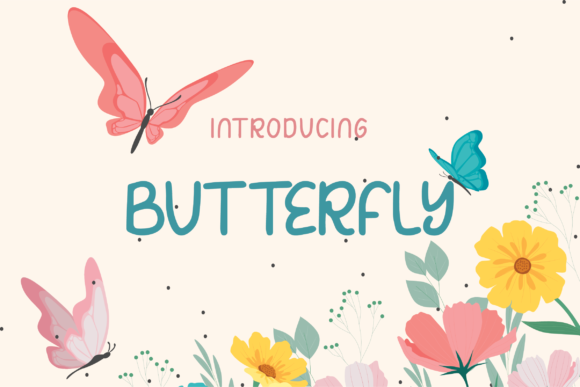
The Perfect Touch: Unlocking the Beauty of the Butterfly Font
Do you remember the moment when you stumbled upon the perfect font to elevate your creative project? For many designers, it’s a moment of pure excitement and joy. Whether it’s a handmade card for a loved one or a brand-new logo for a client, finding the right font can make all the difference.
That’s where the Butterfly Font comes in – a stunning, handwritten font that adds a touch of elegance and sophistication to any design. Its beauty lies in its versatility, making it perfect for a wide range of crafting ideas, from cards and branding to labels and more. With the Butterfly Font, you’ll be able to add a personal and unique touch to your creations, setting them apart from the rest.
As a designer, you know how valuable a great font can be. It can make or break the overall aesthetic of a project, and the Butterfly Font is certainly a game-changer. Its unique characteristics and beauty make it an essential addition to any designer’s toolkit, waiting to be unleashed on your next creative project.
Key Features of Butterfly Font
- Font Family: Butterfly is a sans-serif font family designed for digital use, available in multiple weights.
- Character Set: The font family includes a comprehensive set of characters, including Latin, Cyrillic, and Greek alphabets, as well as a range of punctuation and symbol glyphs.
- Size: The font family is designed for use at medium to large sizes, making it ideal for headings, titles, and other display typography.
- Resolution: The font is optimized for use at high resolutions (up to 300 DPI), ensuring clear and crisp rendering on high-resolution displays.
- Unique Characteristics: Butterfly Font features a distinctive, rounded sans-serif design with a friendly and approachable feel, making it suitable for a wide range of applications, from corporate identity to editorial and advertising design.
Designer Review: Butterfly Font
I’ve had the chance to play around with the Butterfly Font, and here’s my honest take:
- The Butterfly Font has a beautiful, whimsical feel to it. It’s perfect for creating a sense of playfulness and wonder.
- The font is highly customizable, with a range of weights and styles to choose from. This makes it easy to adapt to different design contexts.
- The font’s unique character set, including swashes and flourishes, adds a touch of elegance and sophistication.
- The font may be too ornate for some designs, particularly those that require a clean and minimalist aesthetic.
- The font’s unique character set can be overwhelming in large blocks of text, making it difficult to read.
- The font may not be suitable for body text, as it’s better suited for headings and titles.
Overall, I think the Butterfly Font is a beautiful and unique addition to any designer’s toolkit. While it may have some limitations, it’s perfect for creating eye-catching headings and titles that add a touch of whimsy to a design. Just be sure to use it thoughtfully and in moderation.
The Butterfly Font is ideal for:
2. Baby shower invitations and decorations.
3. Children’s party invitations and decorations.
4. Any design that requires a whimsical and playful touch.
Alternatives to Butterfly Font
The Butterfly Font is a popular script font known for its elegant, flowing design. However, designers may be looking for alternatives that offer similar characteristics or unique features. Here are a few options to consider:
Creamy Script
Creamy Script is a modern script font that features a flowing, cursive design. It is ideal for use in wedding invitations, branding materials, and other designs where a touch of elegance is desired. Compared to Butterfly Font, Creamy Script has a more modern feel and a slightly more condensed design.